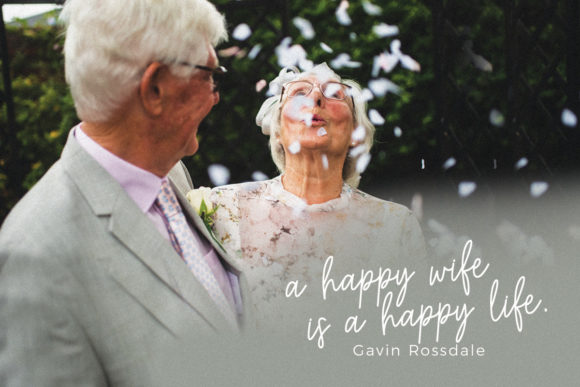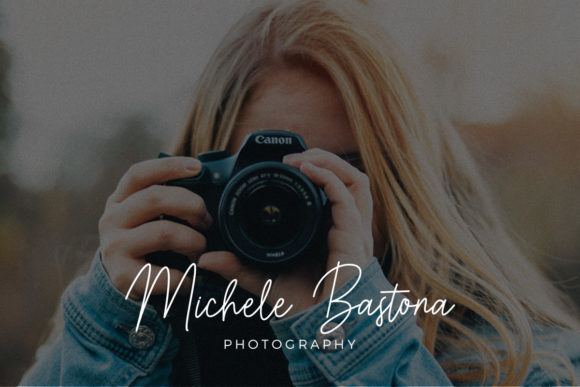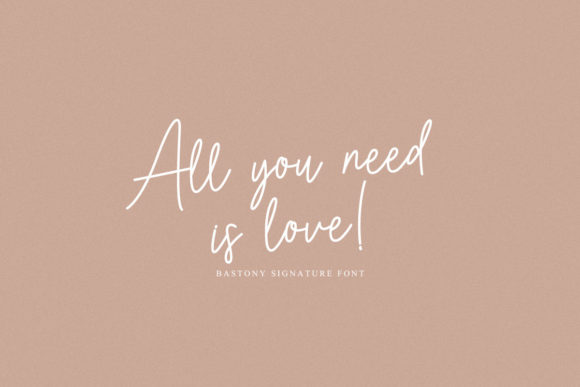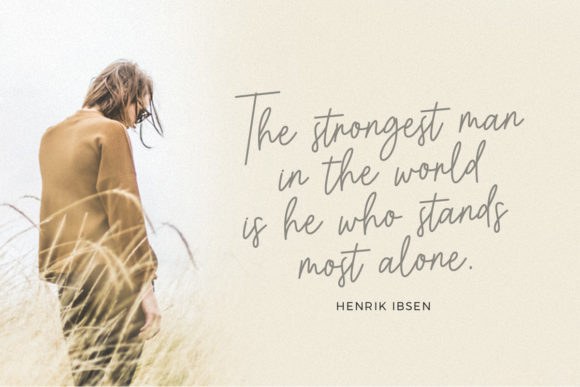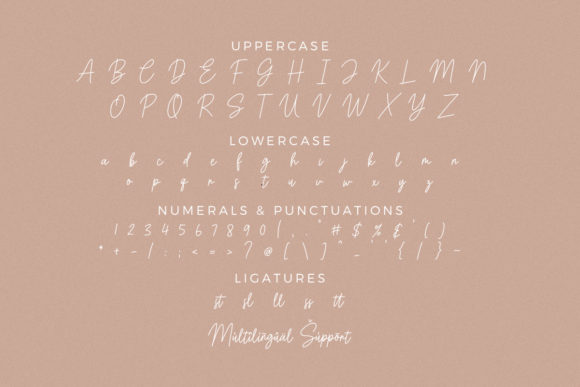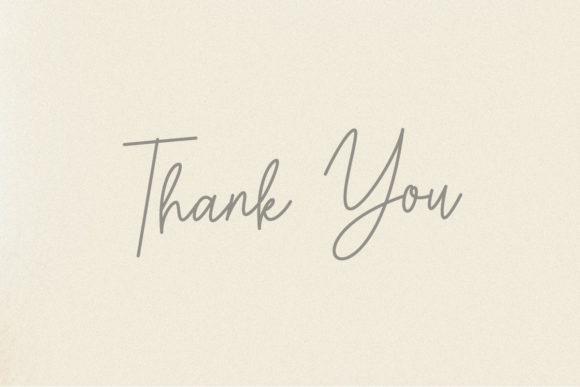
Bastony Signature Font: Elevate Your Designs with Elegance
In the world of typography, a font can make or break a design. For designers and crafters looking to add a touch of sophistication and style to their projects, Bastony Signature Font is an excellent choice. This stunning script font is designed to bring a clean, thin, and smooth vibe to any design, making it a perfect fit for a wide range of creative endeavors.
What is Bastony Signature Font?
Bastony Signature Font is a stylish and delicate script font that exudes elegance and refinement. Its slender lines and smooth curves create a beautiful, flowing script that is both eye-catching and sophisticated. Whether you’re working on a logo, branding materials, invitations, or any other design project, Bastony Signature Font is sure to make a lasting impression.
Key Features of Bastony Signature Font
- Clean and Thin Design: The font’s clean and thin design makes it perfect for adding a touch of elegance to your designs.
- Smooth Vibe: The smooth curves and lines of Bastony Signature Font create a beautiful, flowing script that is both stylish and sophisticated.
- Versatile: This font is versatile and can be used for a wide range of design projects, from logos and branding materials to invitations and more.
- Easy to Read: Despite its delicate nature, Bastony Signature Font is easy to read, making it perfect for body text as well as headlines.
Uses for Bastony Signature Font
Bastony Signature Font is incredibly versatile and can be used for a wide range of design projects, including:
- Logo Design: Create a stunning logo for your business or brand with Bastony Signature Font.
- Branding Materials: Use this font to create beautiful branding materials, such as business cards, letterheads, and more.
- Invitations: Add a touch of elegance to your invitations, whether they’re for weddings, parties, or other special occasions.
- Social Media Graphics: Use Bastony Signature Font to create stunning social media graphics, such as quotes, promotions, and more.
Why Choose Bastony Signature Font?
With so many fonts available, why choose Bastony Signature Font? Here are just a few reasons:
- Unique and Stylish: This font is truly unique and stylish, making it perfect for designers and crafters looking to add a touch of elegance to their designs.
- High-Quality: Bastony Signature Font is a high-quality font that is designed to deliver exceptional results.
- Easy to Use: This font is easy to use and can be easily integrated into your design projects.
Tips for Using Bastony Signature Font
Here are a few tips for using Bastony Signature Font:
- Pair with Bold Fonts: Pair Bastony Signature Font with bold fonts to create a stunning contrast.
- Use for Headlines: Use this font for headlines and titles to add a touch of elegance to your designs.
| Font Name | Bastony Signature Font |
| Author | MultypeStudio |
Bastony Signature Font is a stunning script font that is sure to elevate your designs with elegance. Its clean, thin, and smooth vibe makes it perfect for a wide range of creative endeavors, from logos and branding materials to invitations and more. With its unique and stylish design, high-quality construction, and ease of use, Bastony Signature Font is an excellent choice for designers and crafters looking to add a touch of sophistication to their projects.